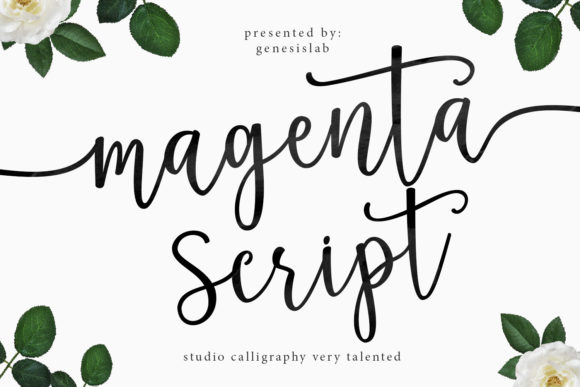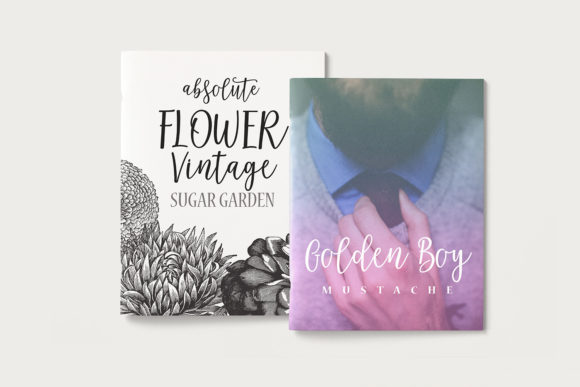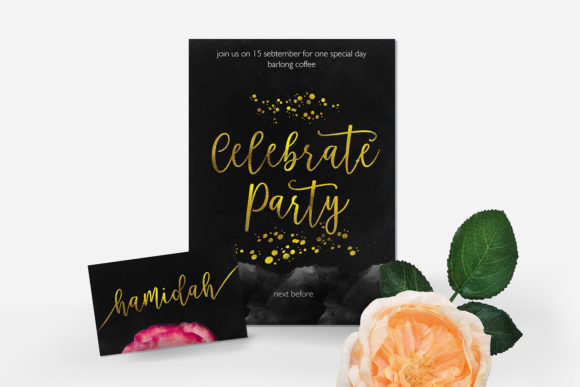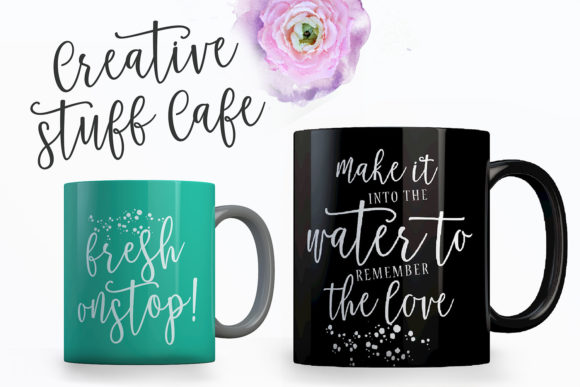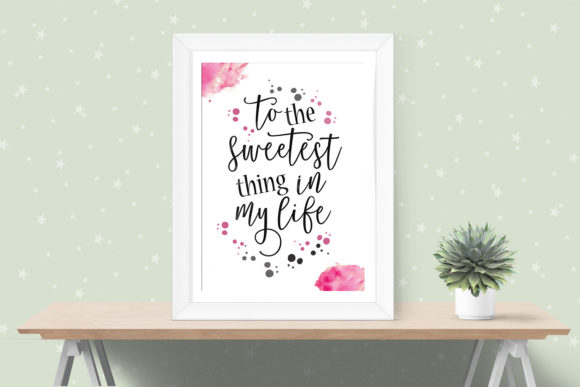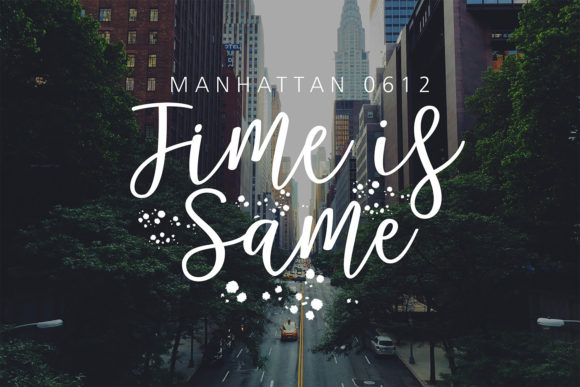
Magenta Script Font
About Magenta Script Font
Magenta is an elegant script font with modern thick and thin connections and an original style. This font is designed with a cursive feel and soft style. This typeface feels fun and feminine, and it will beautifully highlight your most creative ideas!